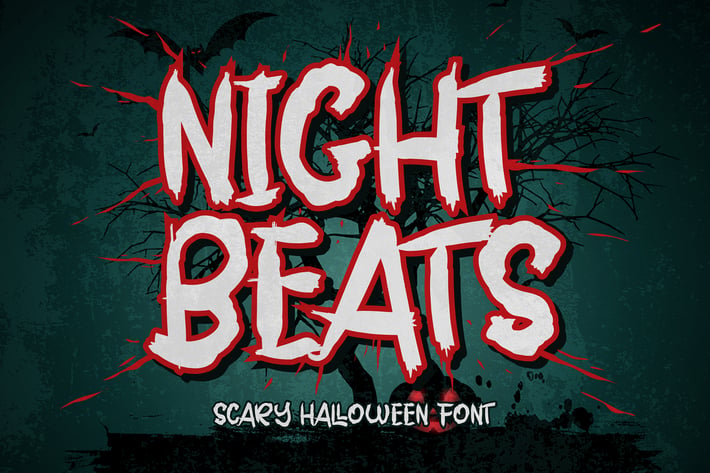
Night Beats - Scary Halloween Font
Night Beats is a strong brush font with a scary horror theme. Masterfully designed to become a true favorite, this font has the potential to bring each of your creative ideas to the highest level!
comes with a natural brush, make it very perfect to use for quotes, logotypes, badges, labels, packaging, or simply use it in your next design project. Especially in Halloween celebrations